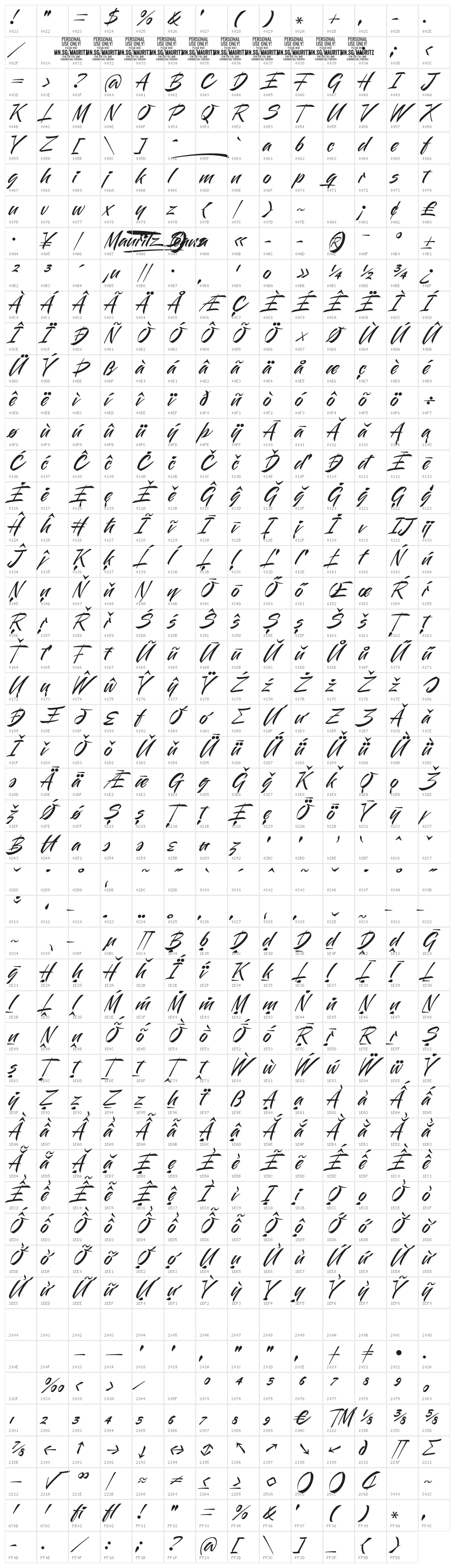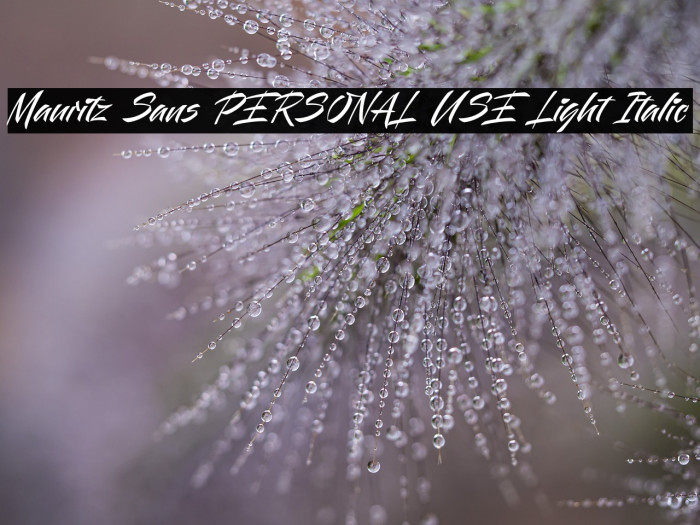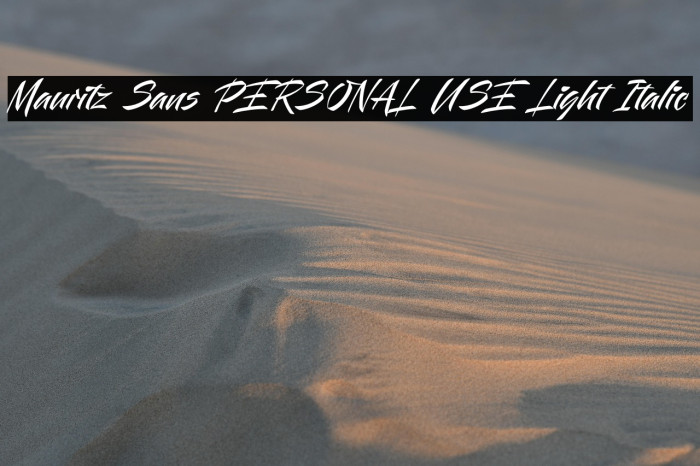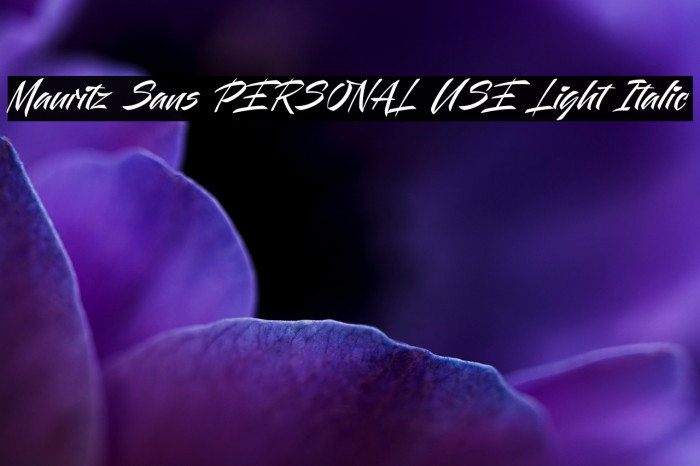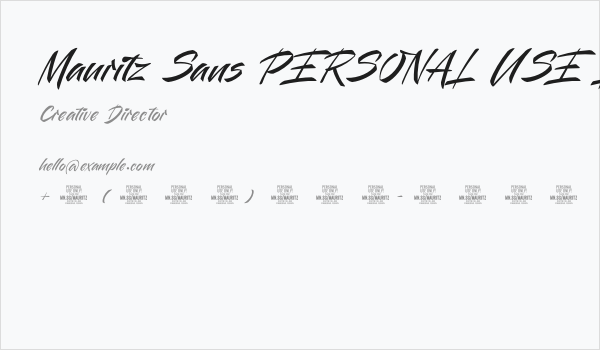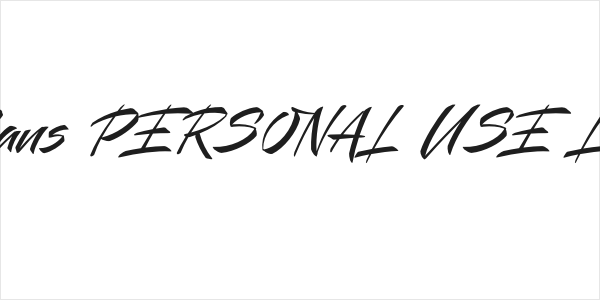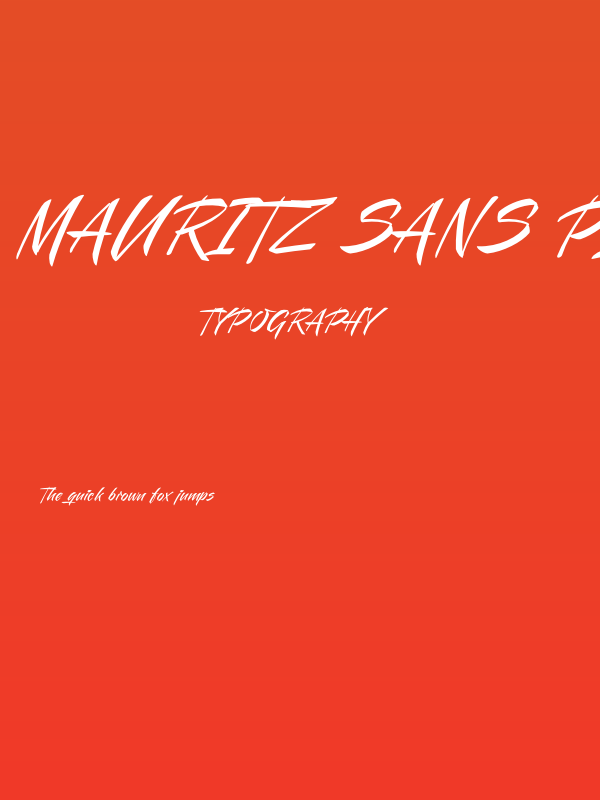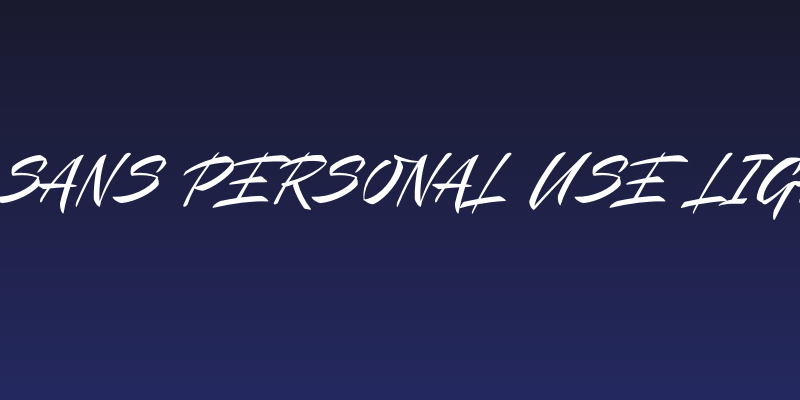
Mauritz Sans PERSONAL USE Light Italic Font
Mauritz Sans PERSONAL USE Light Italic Description
This font features a dynamic and energetic script style with a modern flair. The characters are slanted, giving a sense of motion and fluidity. The strokes are bold and expressive, with varying thickness that adds a lively contrast. The uppercase letters are tall and commanding, while the lowercase letters maintain a consistent flow. The numerals and special characters are designed to match the overall aesthetic, ensuring a cohesive look. This font is ideal for projects that require a touch of elegance and personality.
| Proposed Projects | Ideal for branding, invitations, posters, and any design needing a personal touch. |